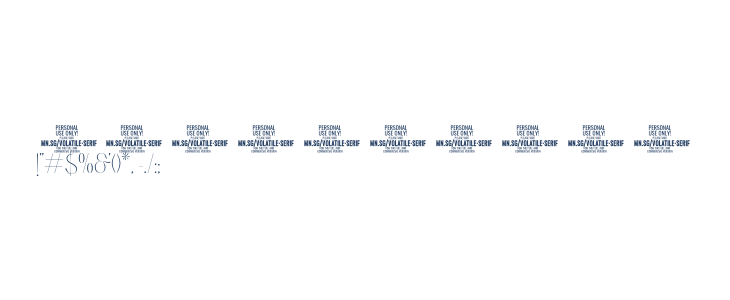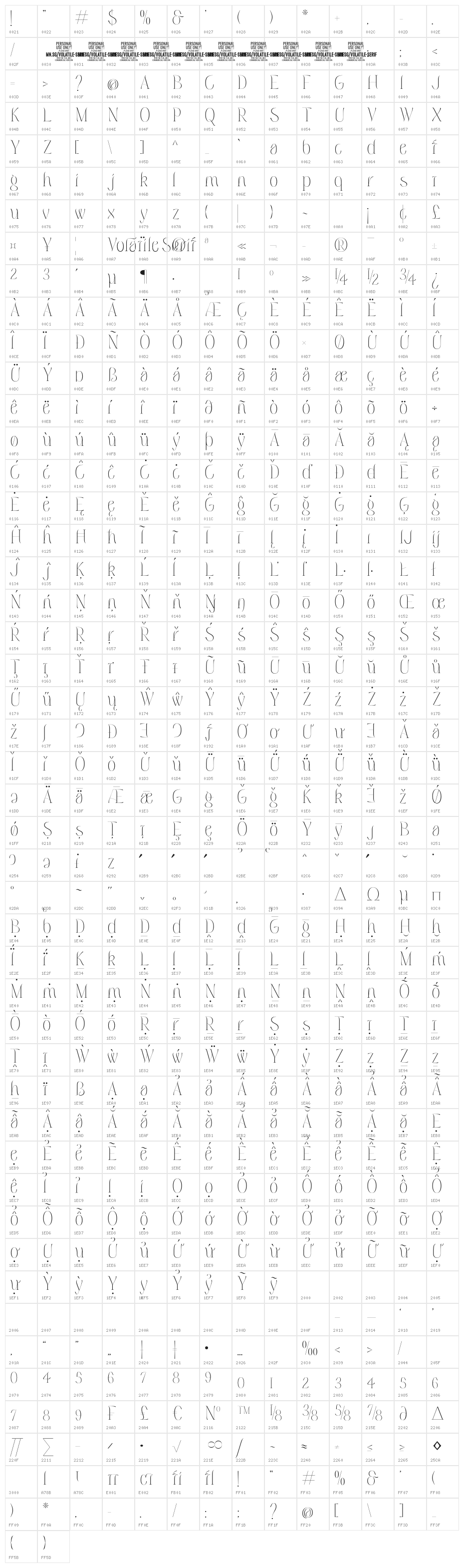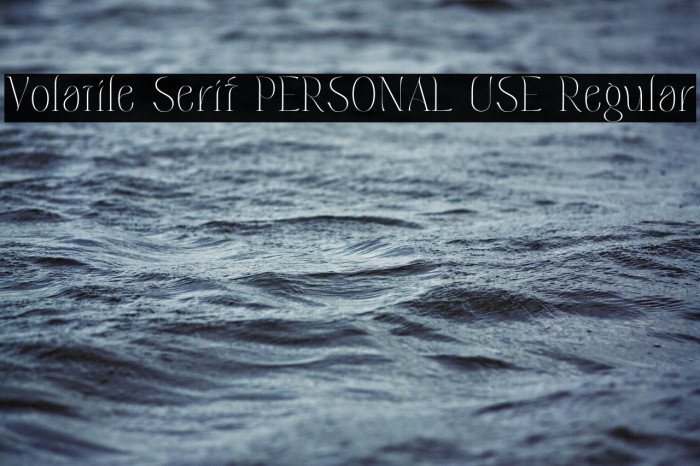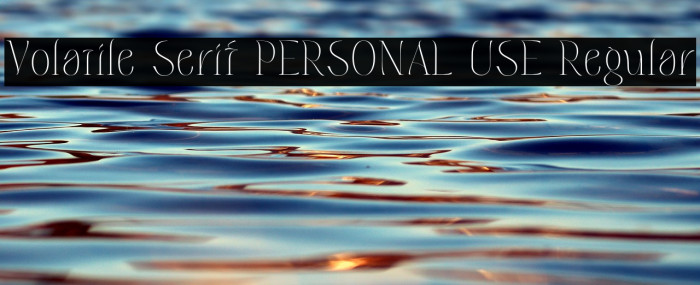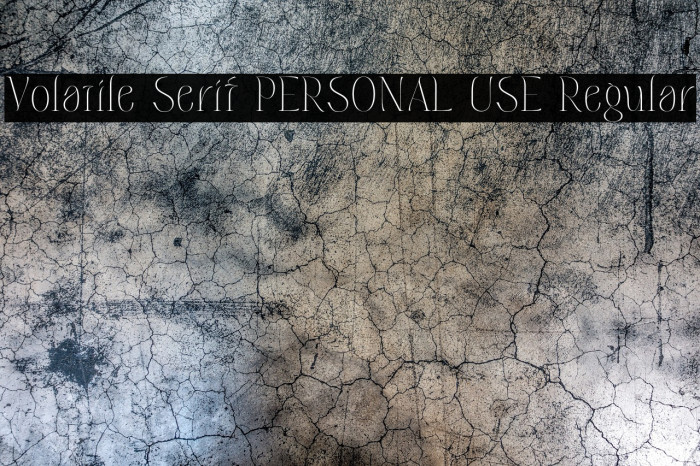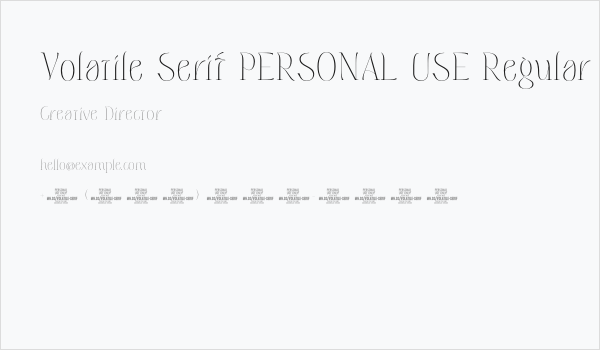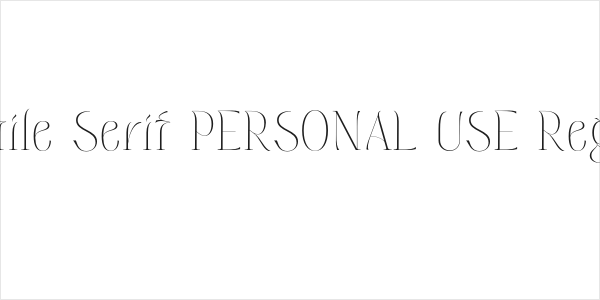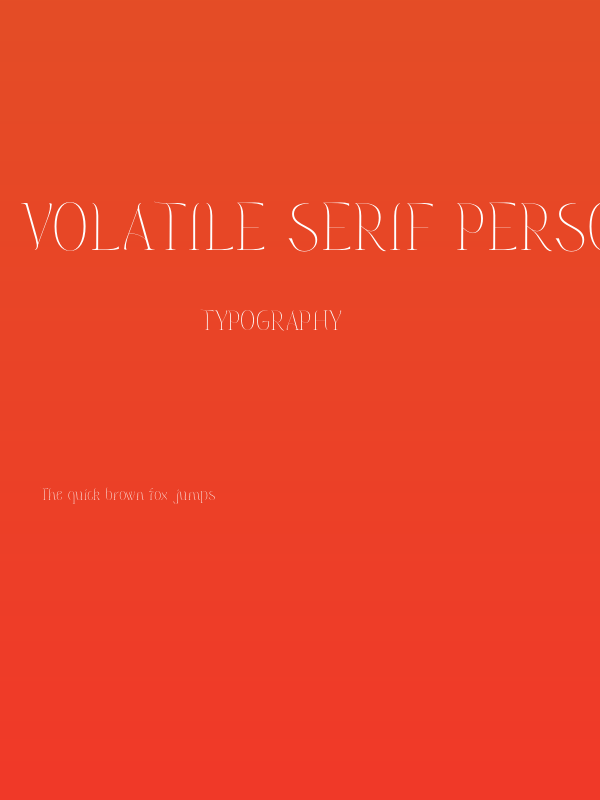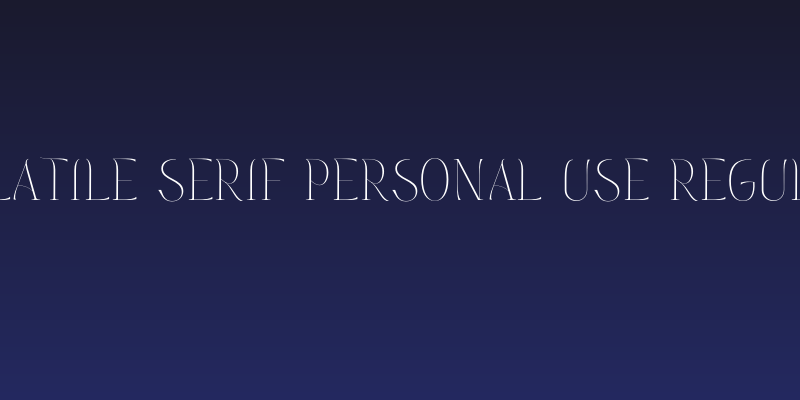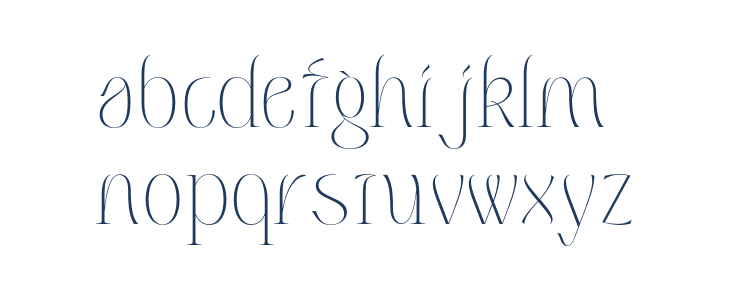
Volatile Serif PERSONAL USE Regular Font
Volatile Serif PERSONAL USE Regular Description
This font features a unique blend of elegance and modernity, characterized by its thin, elongated strokes and subtle curves. The uppercase letters exhibit a sophisticated flair with their tall, narrow forms, while the lowercase letters maintain a graceful continuity. The font's design incorporates high contrast between thick and thin strokes, adding a dynamic and stylish appearance. The special characters are crafted with the same attention to detail, ensuring consistency across all glyphs. This font's refined aesthetic makes it suitable for projects that require a touch of class and sophistication.